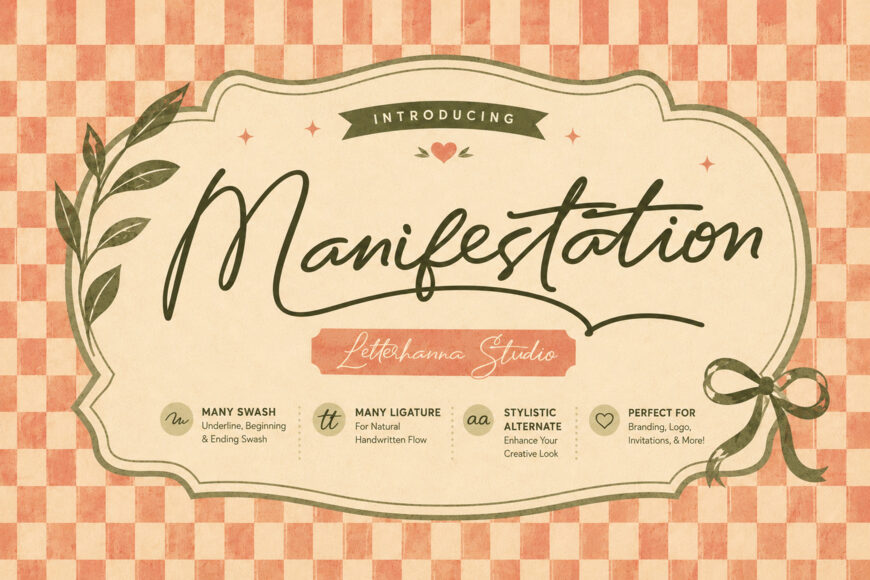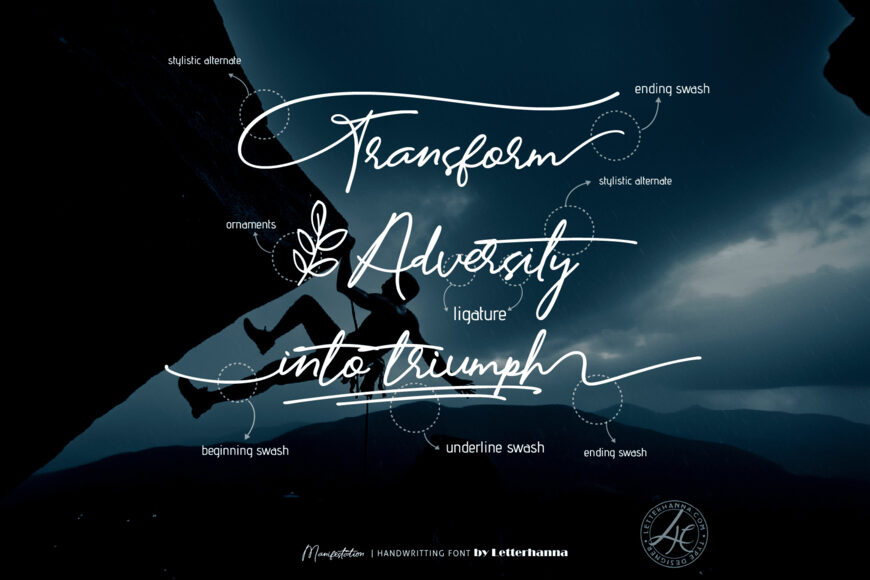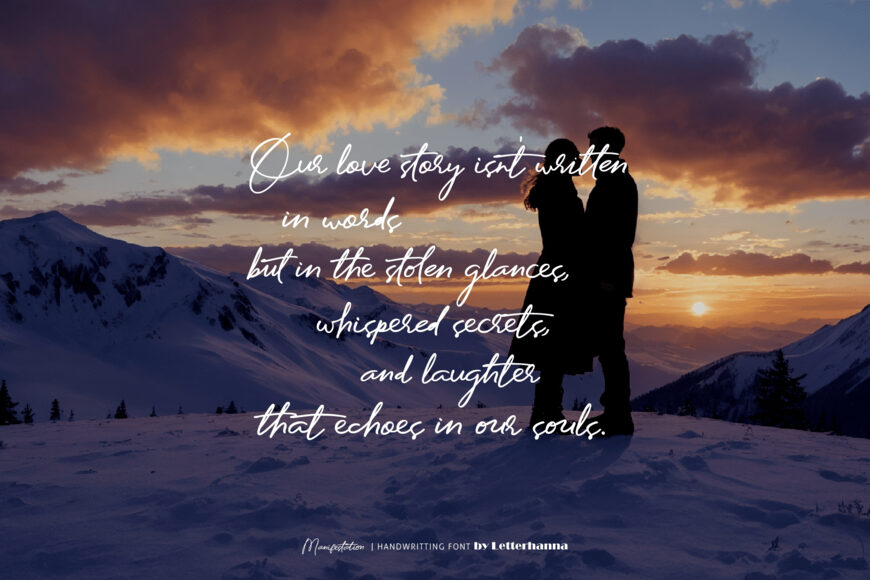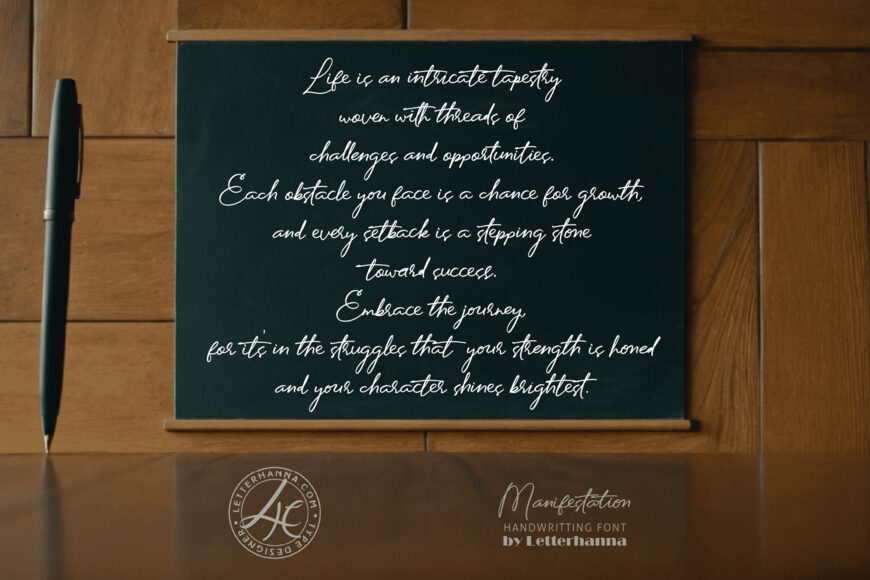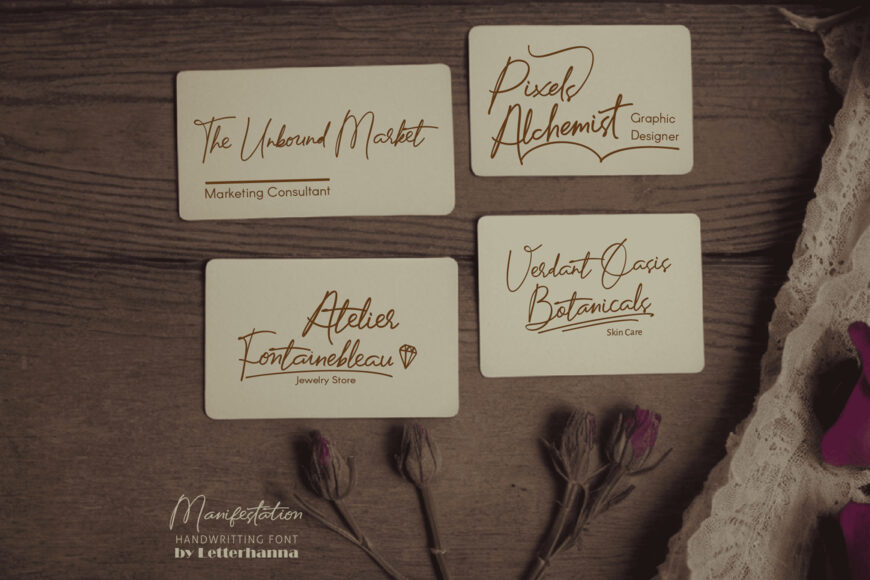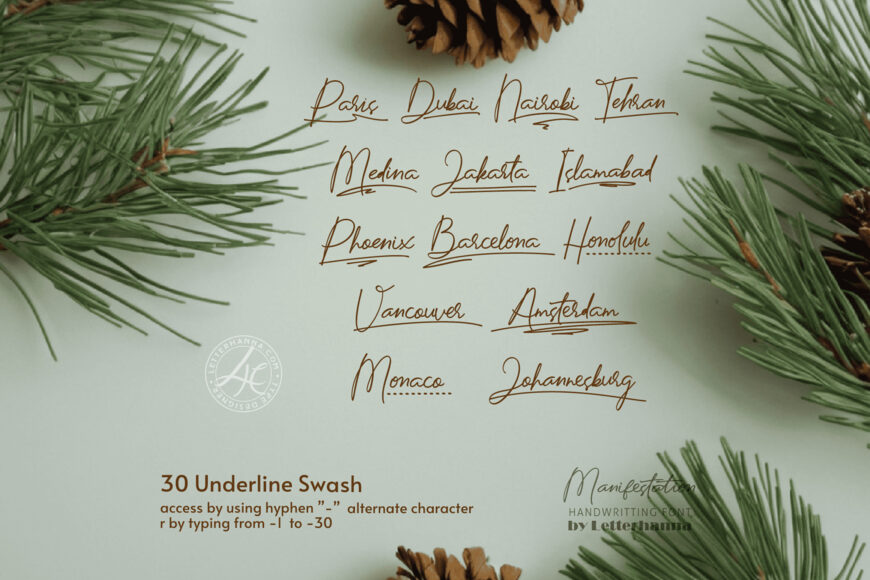
Manifestation is a captivating handwritten script font that brings your words to life with an authentic and expressive touch. Its elegant curves and natural flow will lend a personal charm to any project, from handwritten notes and invitations to creative branding and social media content.